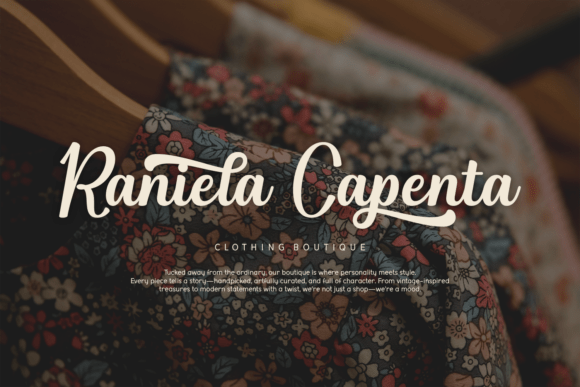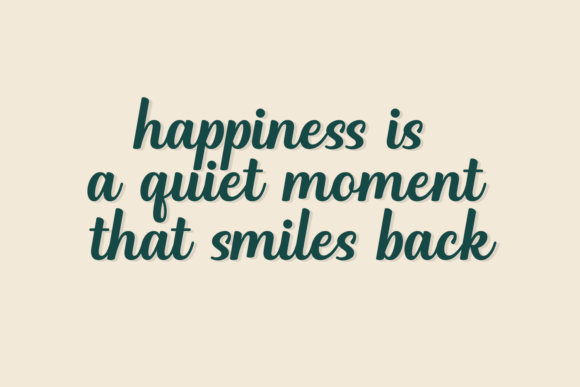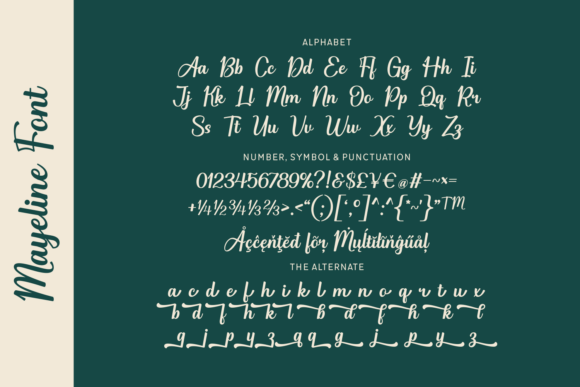
Introduction to Mayeline Font
Mayeline is a bold and confident brush script typeface, designed to bring vintage flair and modern energy to your work.
With its dynamic strokes, smooth swashes, and strong curves, Mayeline is perfect for logos, retro posters, branding projects, and eye-catching headlines This font combines handcrafted character with stylish appeal, making it a go-to choice for creatives who want impact with elegance.